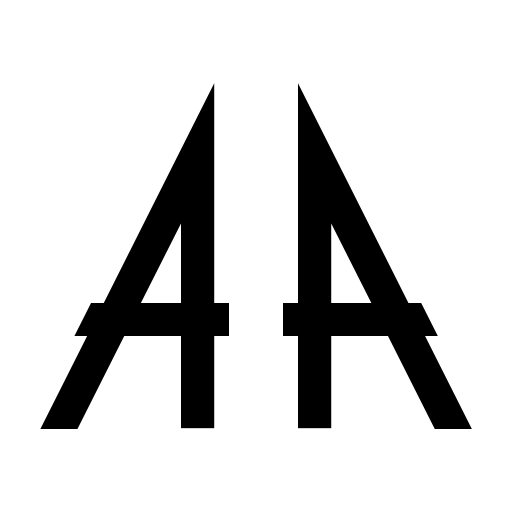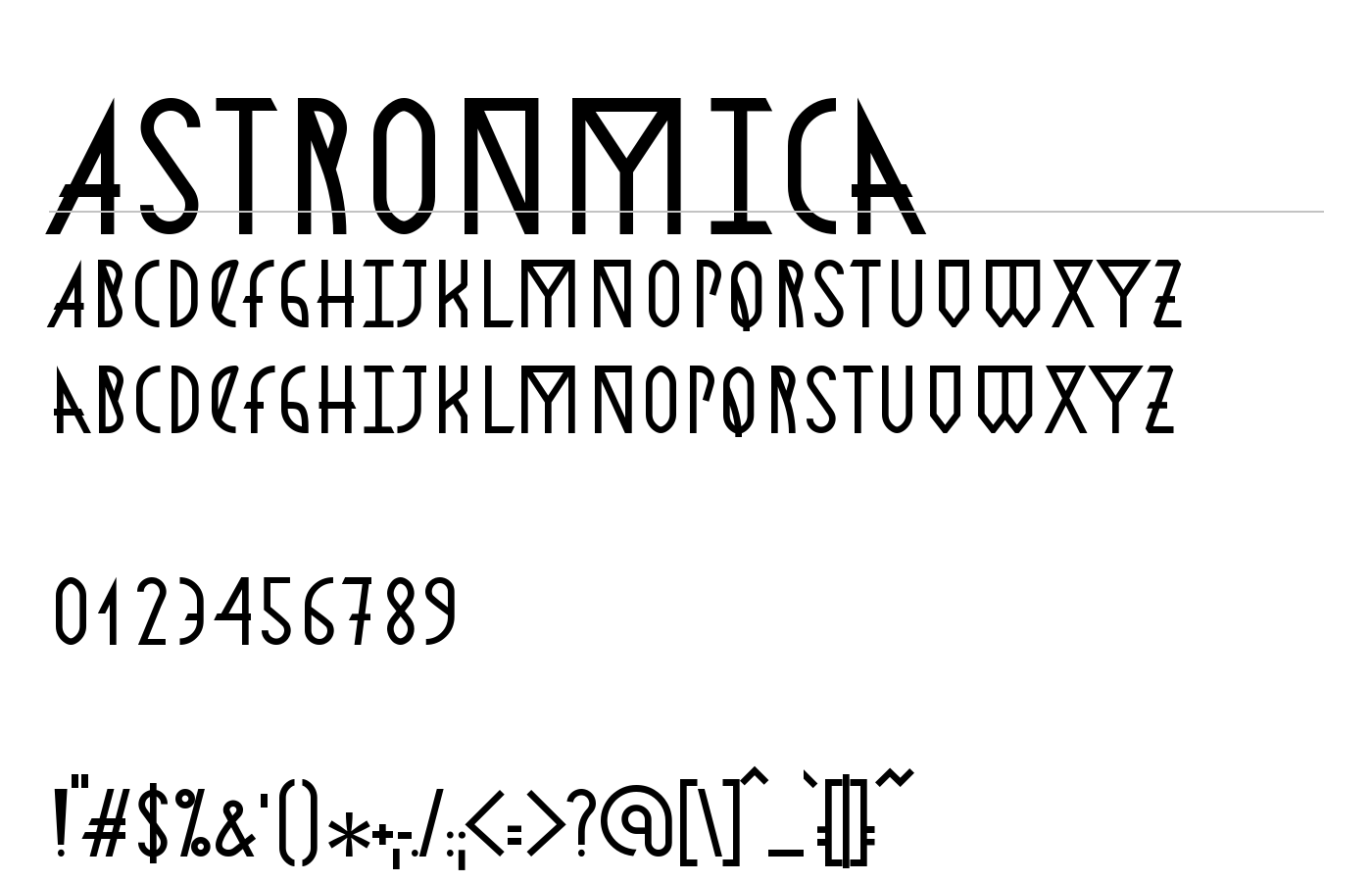
Astronmica is a condensed, geometric sans-serif font with a futuristic and sci-fi vibe, featuring highly stylized, angular letterforms and distinct sharp edges. Its narrow width, consistent stroke weight, and unique character shapes make it ideal for modern, tech-forward branding and striking headlines. This font works best where a bold, innovative look is needed to capture attention, such as in logos, posters, and digital interfaces.
Astronmica Font
About Astronmica Font